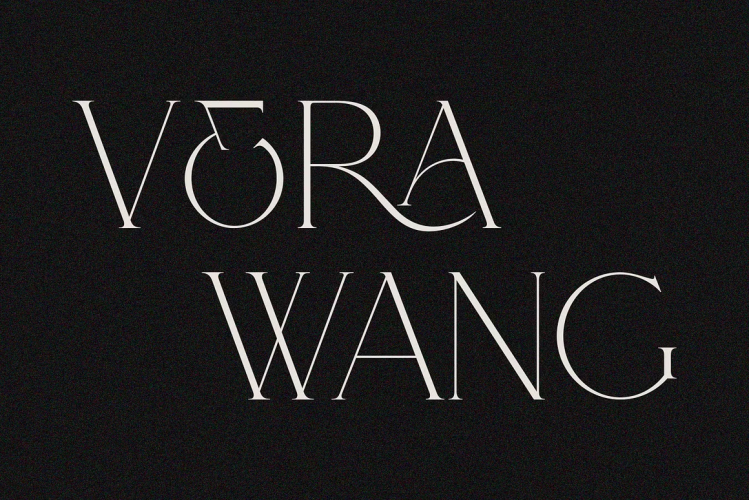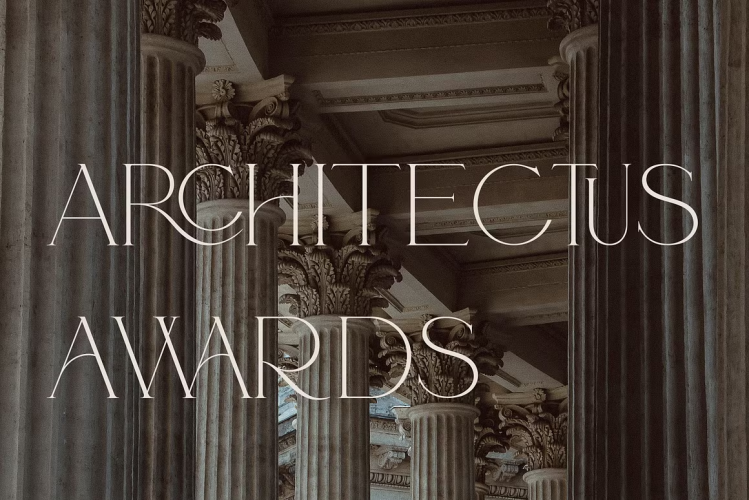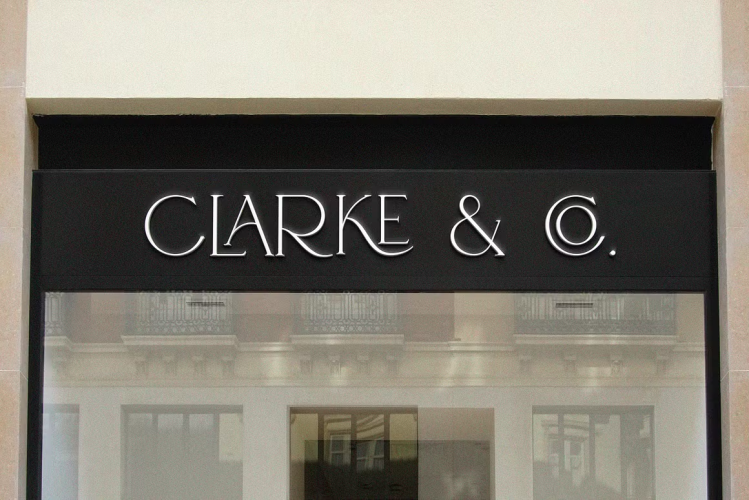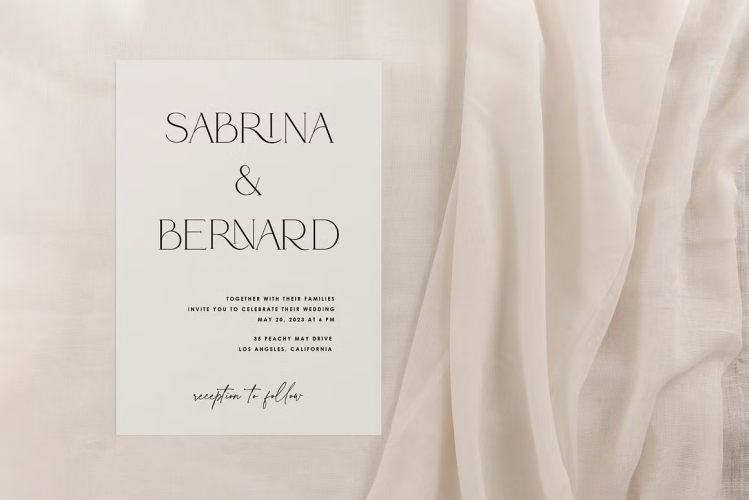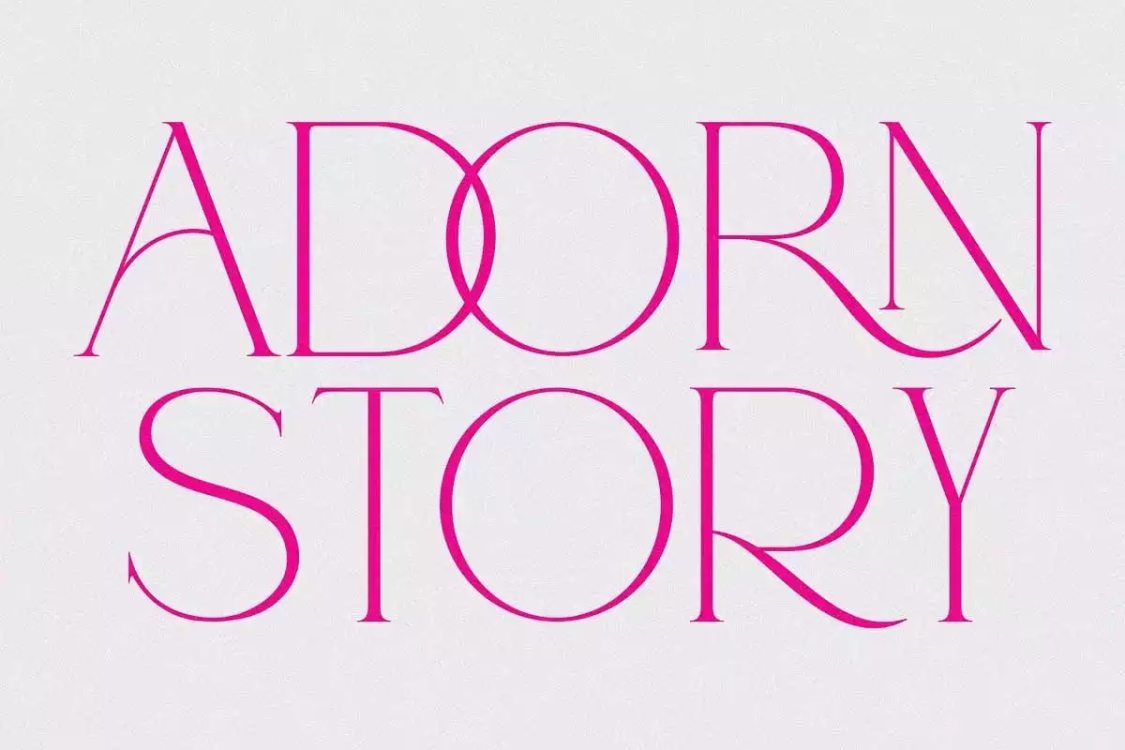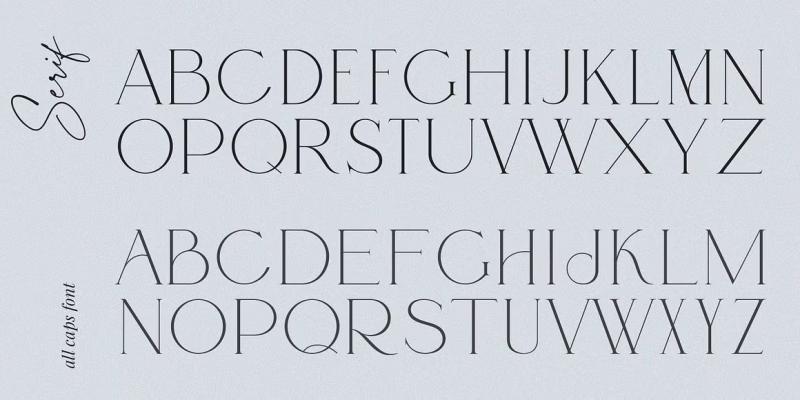
Adorn Story Font
Meet our new amazing font duo, Adorn Story. If you are looking for a beautiful, refined serif paired with voguish script, you will fall in love with it. The serif font is rich with 60 ligatures, and the script font has beginning uppercase and beginning and ending lowercase swashes.
Where Adorn Story Font works best
Adorn Story Font gives long-form text a classic, trustworthy rhythm — ideal for magazine spreads, annual reports and book interiors.
Pair Adorn Story Font with generous letter-spacing for wordmarks in fashion, hospitality, wine and jewellery branding.
Use Adorn Story Font for slide titles in Keynote, PowerPoint or Google Slides to add authority without looking dated.
What is Adorn Story Font good for?